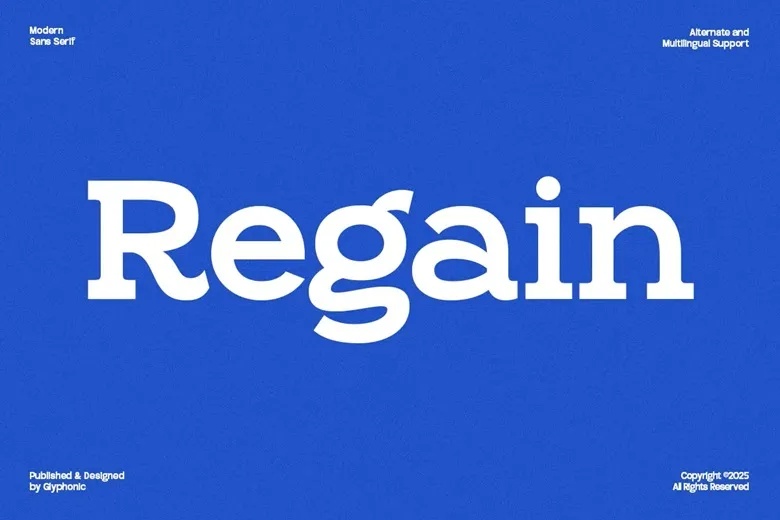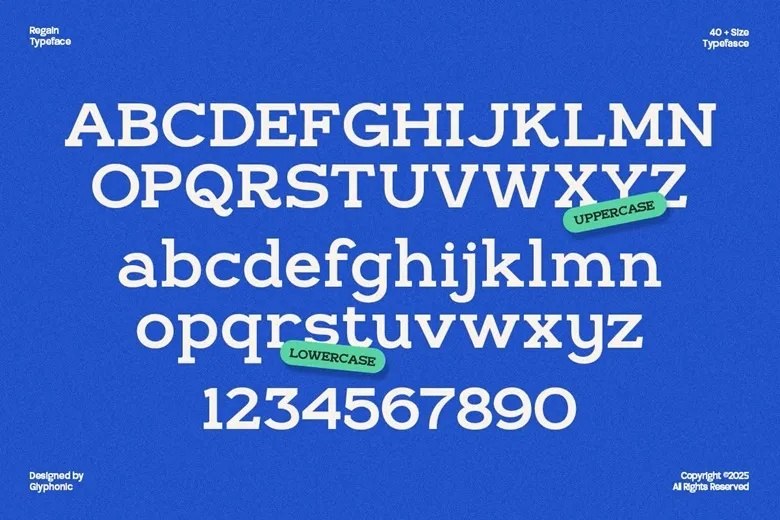
GC Regain Font
GC Regain is a bold display slab serif font that blends vintage strength with modern confidence. Designed to make a lasting impression, it’s perfect for headlines, branding, logos, packaging, and editorial layouts.
With thick slab serifs, strong structure, and commanding letterforms, GC Regain brings bold personality and presence to any design.
Ideal for fashion, lifestyle, or artistic visuals that demand attention, this versatile typeface doesn’t shy away from making a statement.
GC Regain Slab Serif Font